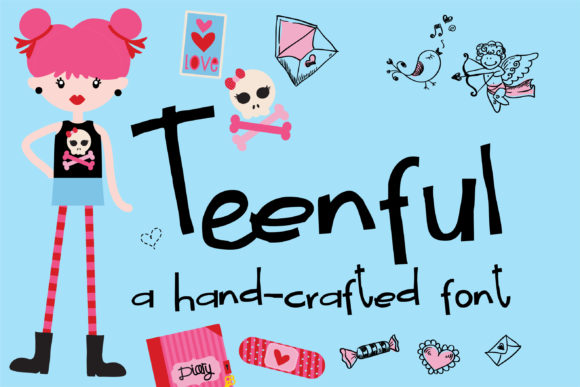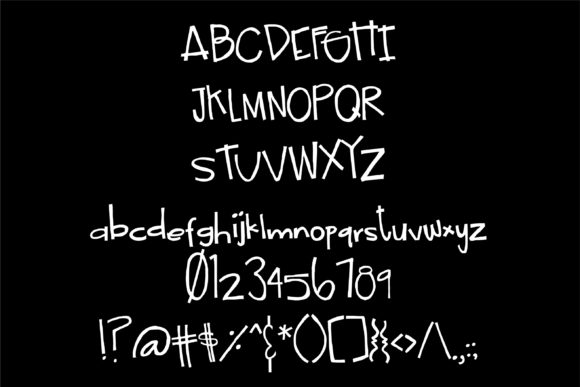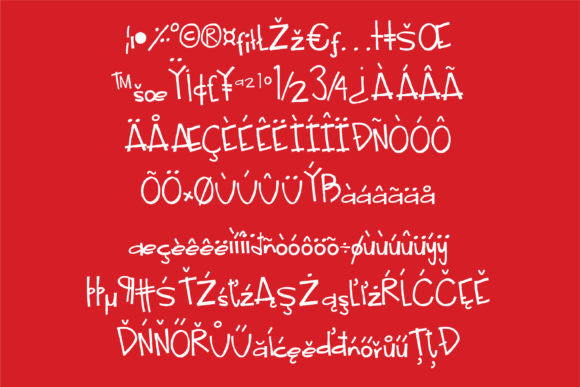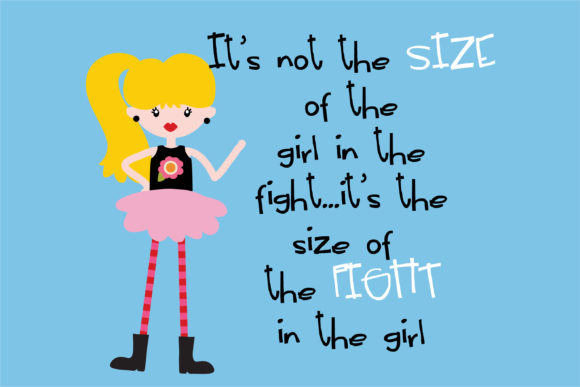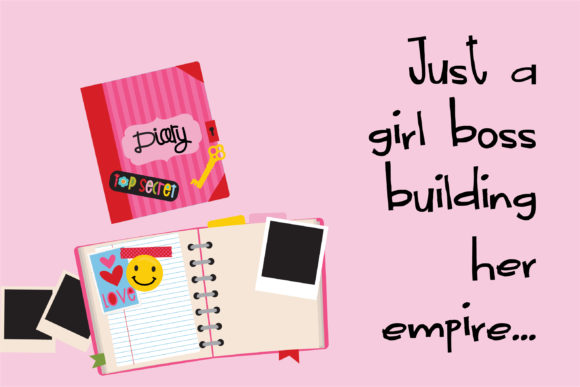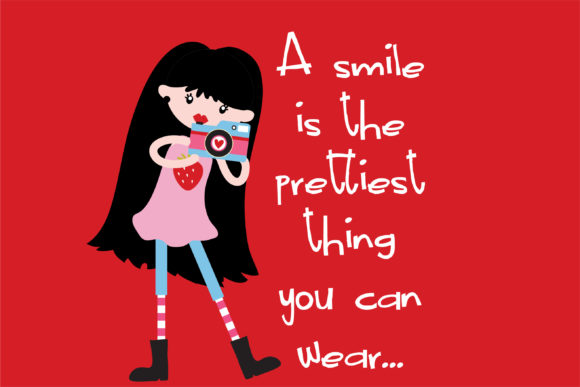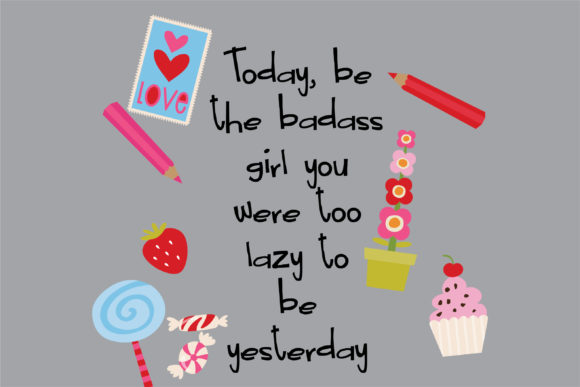
Teenful Font
About Teenful Font
Teenful is a quirky and unique handwritten font. This enchanting font will turn any design into a true standout. Get creative with its childlike playfulness, and use it to brighten up any kids and school project!